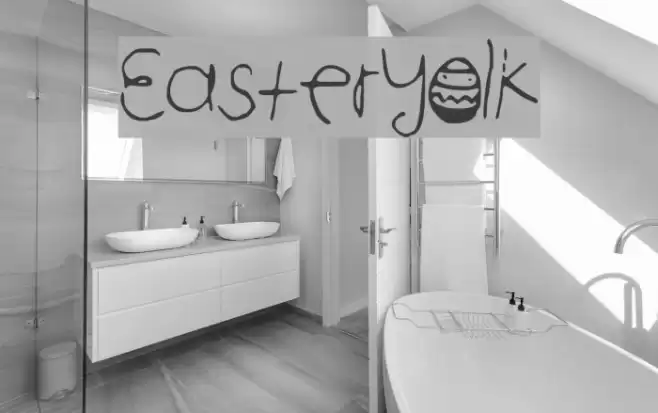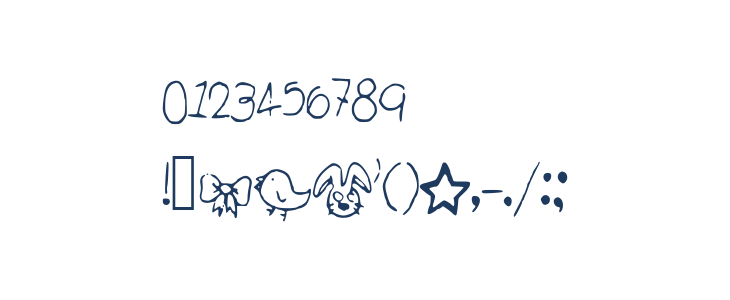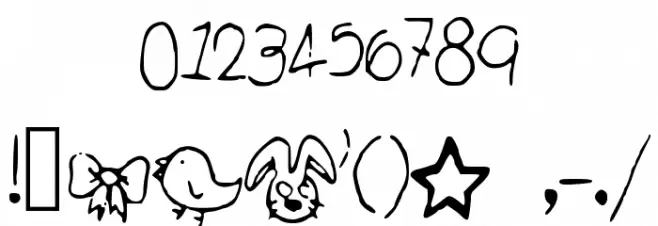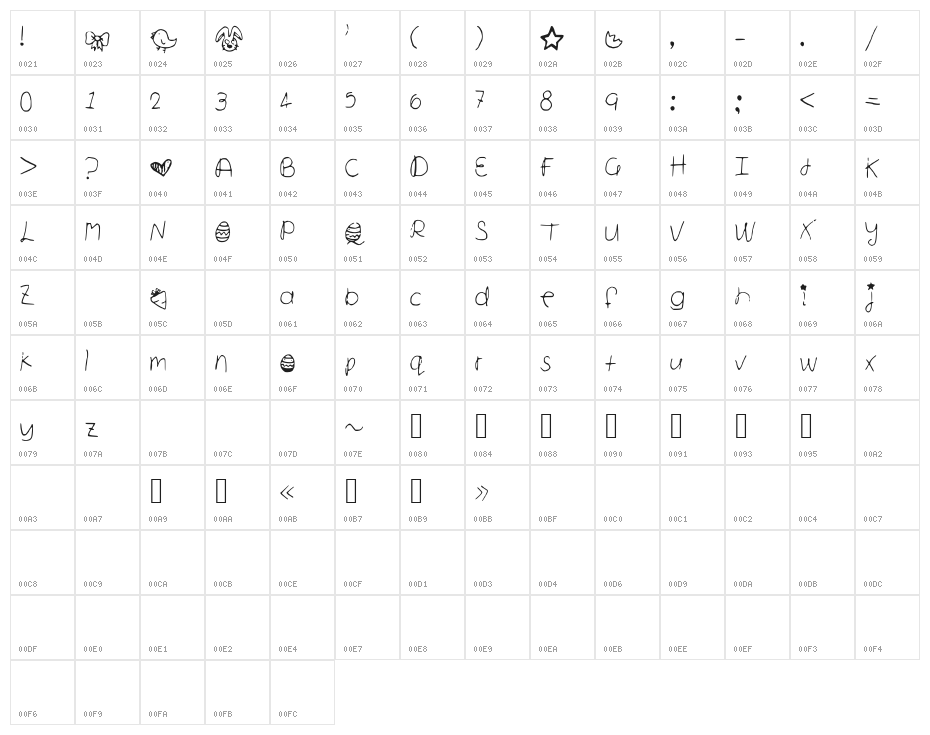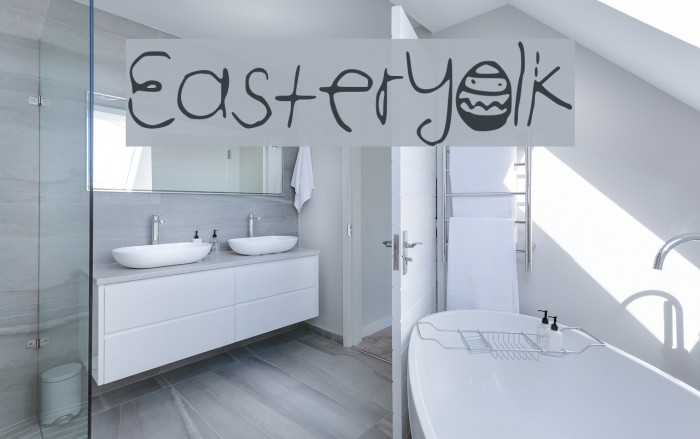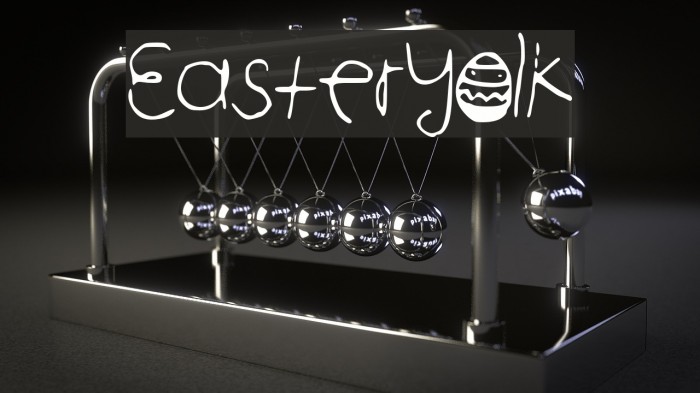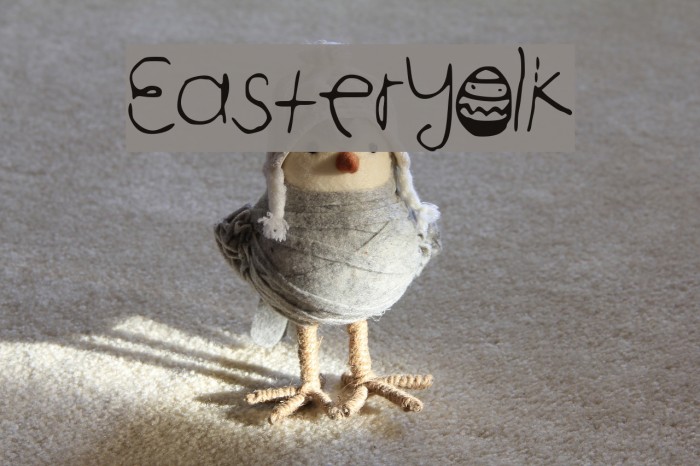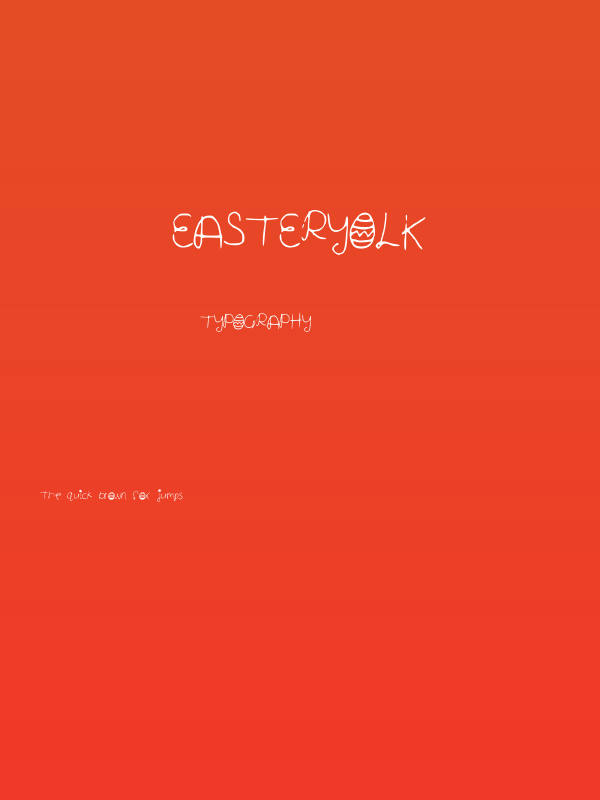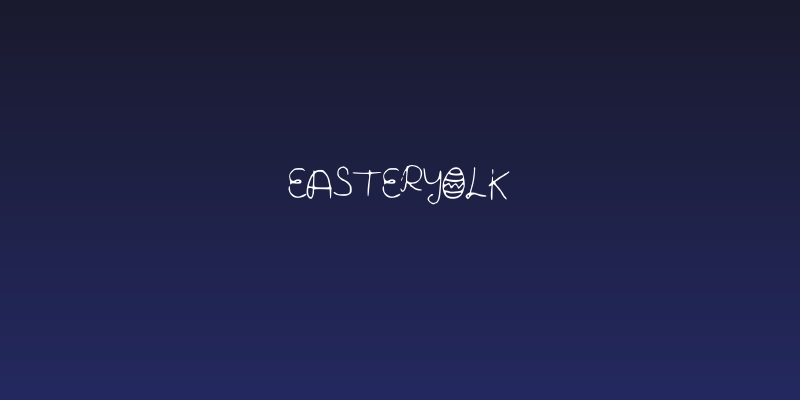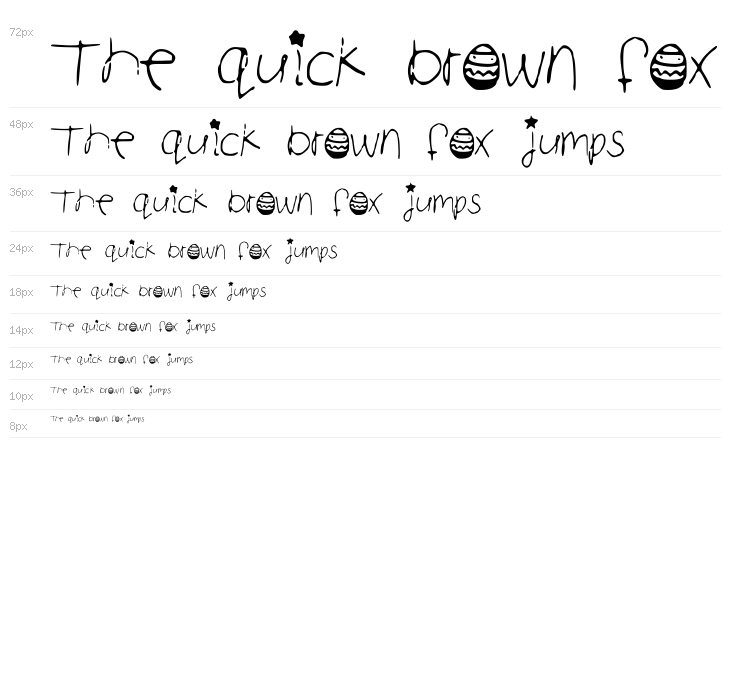
EasterYolk Font
EasterYolk Description
This playful and whimsical font features a hand-drawn style with unique Easter-themed elements. The uppercase letters incorporate decorative patterns resembling Easter eggs, adding a festive touch. The lowercase letters maintain a casual, handwritten appearance, enhancing the font's charm. Numbers and special characters follow the same playful design, with some characters featuring additional embellishments like stars and bows. The overall style is lighthearted and fun, making it perfect for holiday-themed projects.
A playful, hand-drawn font with Easter-themed decorations from Uncategorized fonts.
- Proposed Projects: Ideal for Easter cards, children's book covers, festive banners, and playful branding.
- Use Case: Headlines, Logos, Decorative text